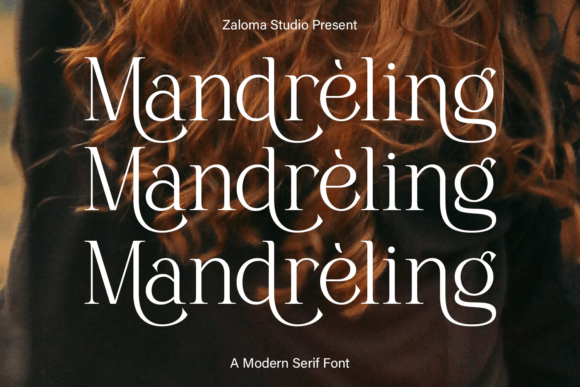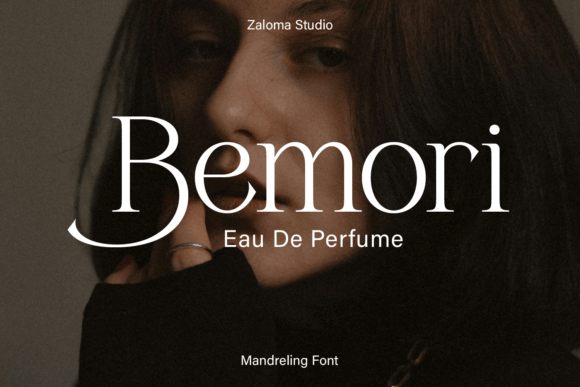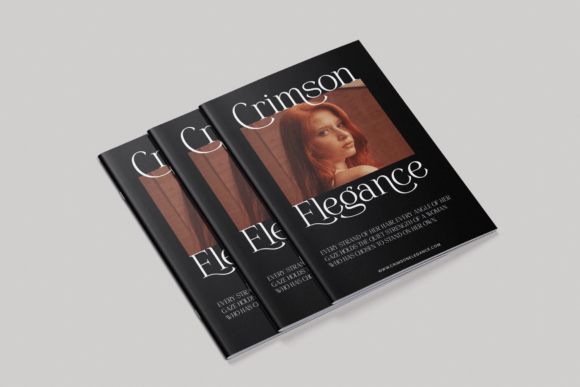
Mandreling Font: Elegant Serif Typography for Feminine Branding
About the Mandreling Font
We are excited to introduce Mandreling Font, a must-have typeface for any serious designer. Mandrèling is a modern serif font with an elegant, classic touch. Designed by Zaloma Studio, it features graceful high contrast strokes, complete with decorative alternates and ligatures. Its tall, curved shapes give a luxurious, romantic, and feminine feel — perfect for branding, editorials, invitations, and premium packaging.
Mandrèling excels in headline treatments, short paragraphs, and applications requiring a touch of refined elegance, such as luxury branding, invitations, or high-end packaging design. Its decorative features shine in logos and short-form text, creating a sophisticated and memorable impact. However, its high contrast and decorative elements make it less suitable for lengthy body text or UI elements where readability is paramount.
Pairing Mandrèling effectively requires consideration of its inherent elegance. A clean sans-serif like Open Sans or Lato would provide a strong contrast and enhance readability in supporting text. For a more luxurious feel, consider pairing it with a delicate script font like Great Vibes for a layered, sophisticated aesthetic. Conversely, a geometric sans-serif could offer a modern, balanced counterpart.
Mandrèling projects a sophisticated and romantic personality, ideal for brands aiming to convey luxury, prestige, or a classic yet modern sensibility. Its elegant, high-contrast forms communicate refinement without being overly fussy, making it versatile within a defined stylistic context.
Mandreling Font Usage Examples
Mandreling Font Example